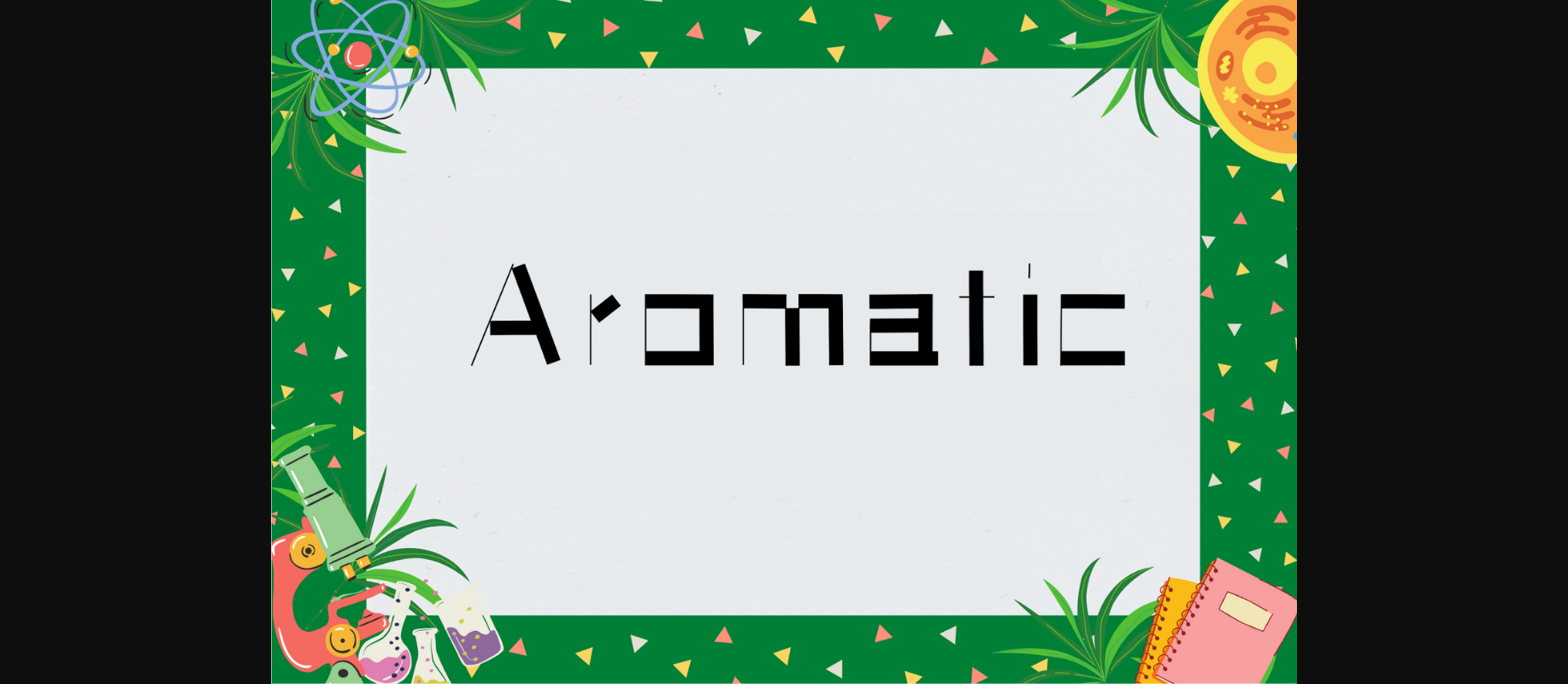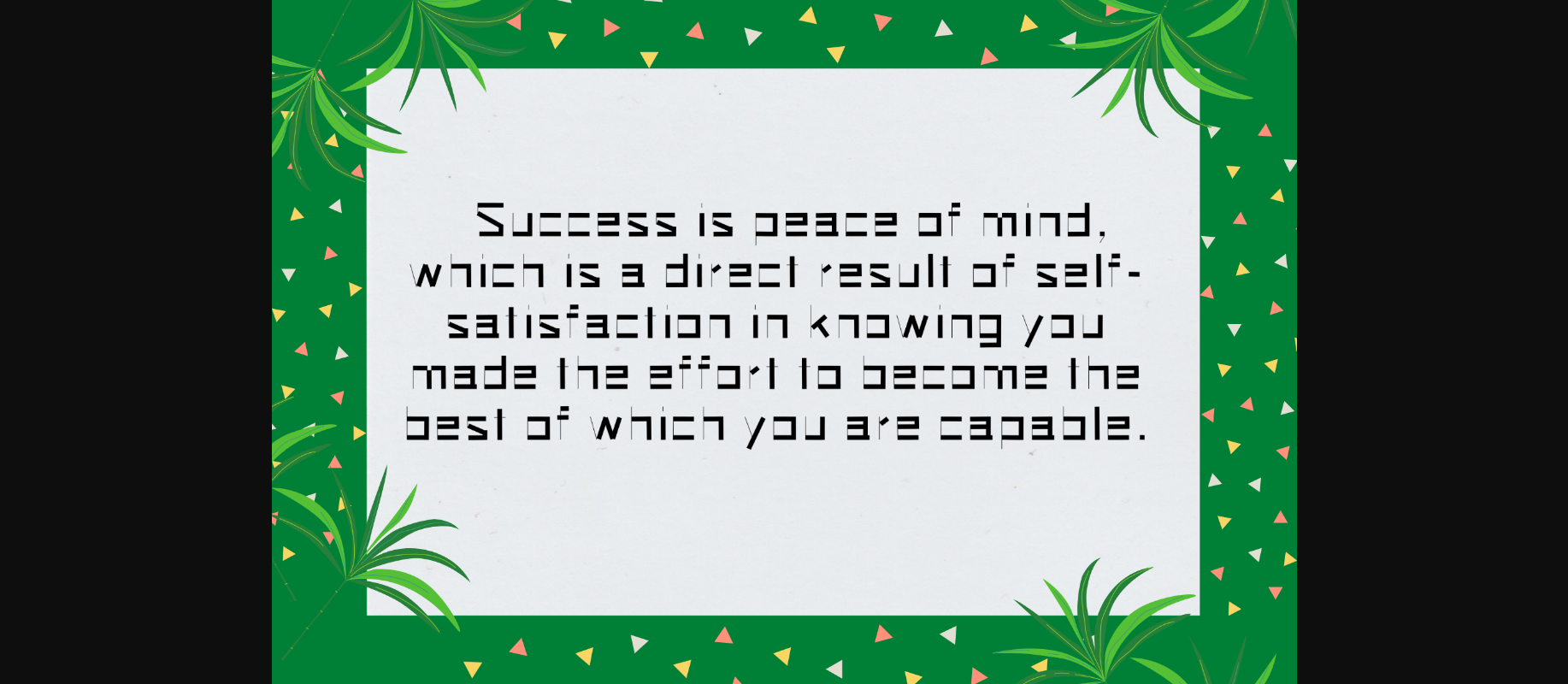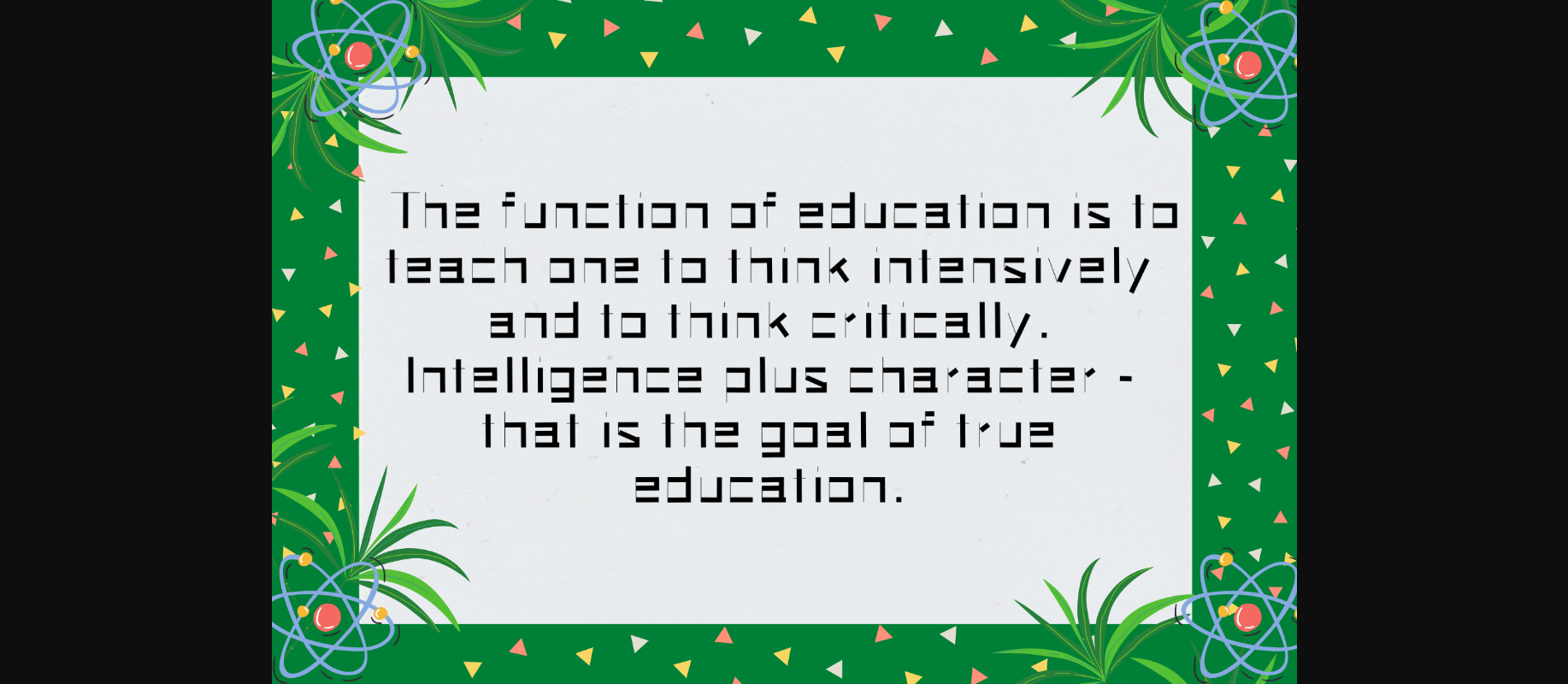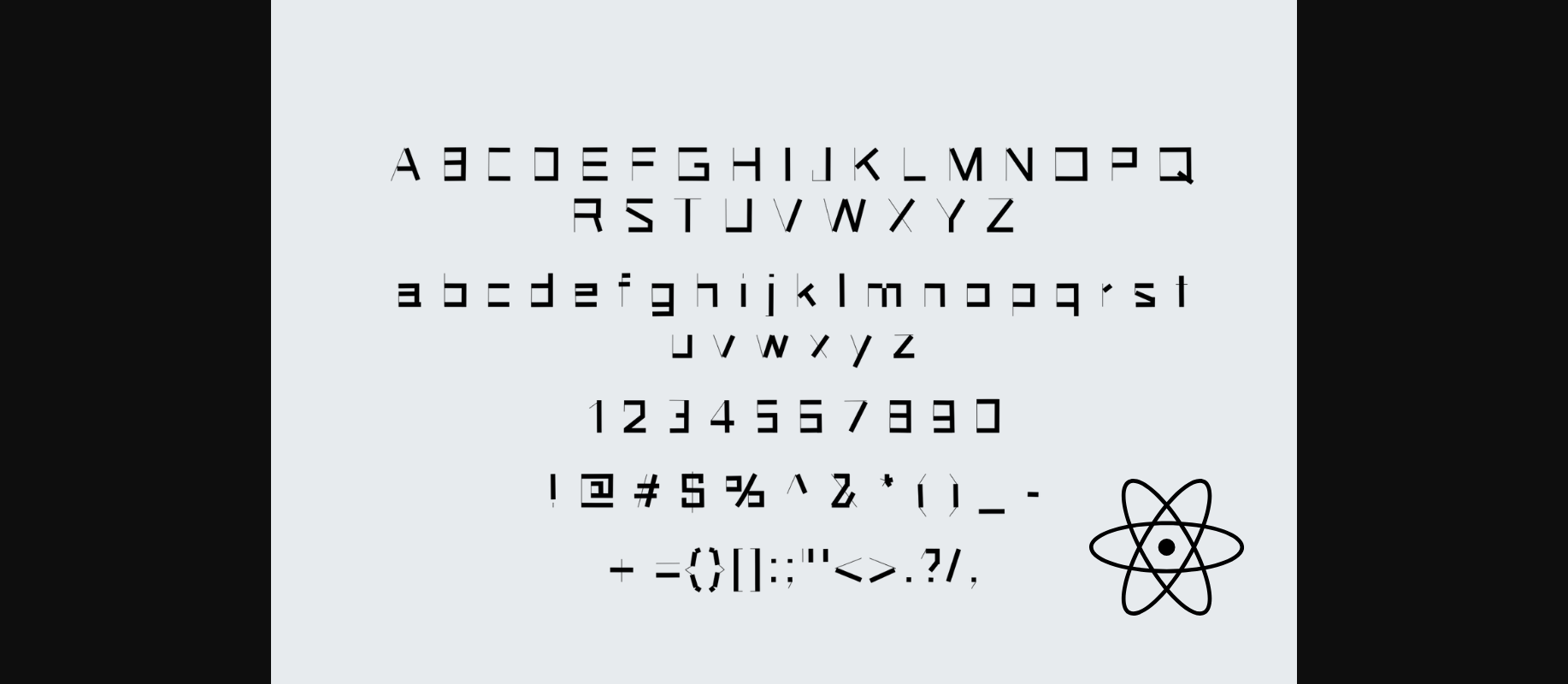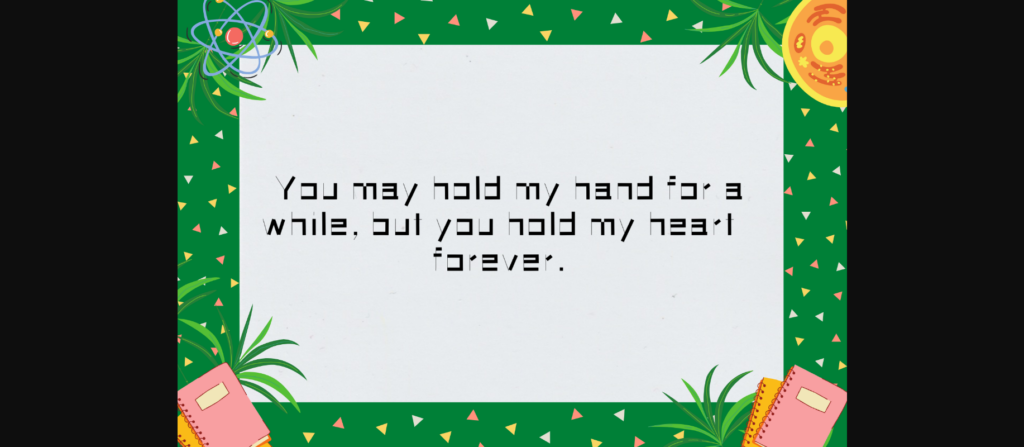
HomeDecorative FontsAromatic Font Decorative Fonts Aromatic Font FacebookXPinterestWhatsApp 1 of 7 ... Aromatic Font Poster 2... Aromatic Font Poster 3... Aromatic Font Poster 4... Aromatic Font Poster 5... Aromatic Font Poster 6... Aromatic Font Poster 7... About Aromatic Font Aromatic font is a decorative font which made from thin and bold line that good for creative content such as kids projects, craft, IT, Math related projects and more. Add it to your projects and watch them come alive DOWNLOAD NOW People also explored Sinderland Font Batlantic Font Nada Font Clarissa Font Miracle Justice Modern Casual Handwritten Script Font Candy Kisses Valentine Font Barbary Coast Marettimo Font Backstone Font 282 0 TagsAromatic Font Previous articleTriangle FontNext articleKishare Brush Font LEAVE A REPLY Cancel reply Comment: Please enter your comment! Name:* Please enter your name here Email:* You have entered an incorrect email address! Please enter your email address here Website: Save my name, email, and website in this browser for the next time I comment. Personal Use Free Broodfath Personal Use Free Read more about this font Bakk Trieng Personal Use Free Read more about this font Coolvetica Font Personal Use Free Read more about this font Baveuse Personal Use Free Read more about this font BLOG Using Fonts in Digital Marketing: Tips to Strengthen Your Brand Identity In the realm of digital marketing, every visual element plays a crucial role in shaping a brand's identity, and fonts are no exception. The... Best Fonts for YouTube Videos: Make Your Thumbnails Stand Out Exploring Font Trends Where to Buy American Fonts Online in 2024